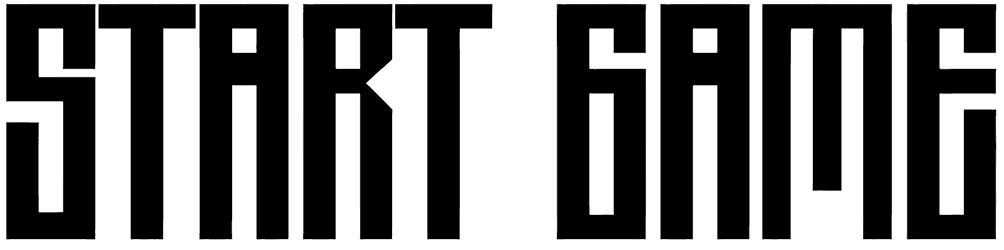
Start Game Font
Start Game is an all-caps 80s sci-fi font that comes with tall characters, and due to this fact, easily engages the audience with your artwork. This font can be really ideal for designing video game posters, logos, business cards, book covers, or social media posts.
If your first preference in creating graphic projects is establishing a sense of modernity, futuristic, dynamic, or friendliness, this masterpiece can fulfill your ambitions.